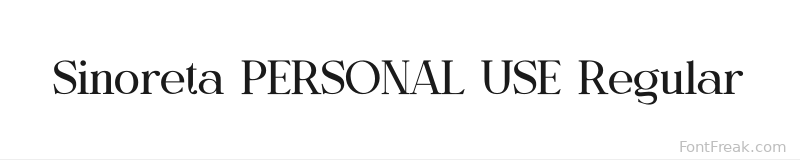
Sinoreta PERSONAL USE Regular
Sinoreta PERSONAL USE Regular is a striking serif font designed by Mans Greback, released in 2023. This font captures attention with its elegant and contemporary aesthetic, making it a versatile choice for a variety of design projects. The stroke weight is balanced, providing a sense of sophistication while maintaining readability. The moderate contrast in letterforms adds a refined touch, and the careful spacing between characters enhances legibility, making it suitable for both headlines and body text.
This font is particularly well-suited for wedding invitations, where its graceful curves can convey a sense of romance and elegance. It can also elevate movie posters, imbuing them with a classic yet modern feel. Restaurant menus can benefit from its stylish appearance, creating an inviting atmosphere for diners. Additionally, it serves as an excellent choice for branding projects aimed at small businesses, allowing owners to present a polished image that resonates with their target audience.
What sets Sinoreta PERSONAL USE Regular apart is its ability to blend traditional serif elements with a modern twist. This balance allows it to fit seamlessly into both contemporary and classic designs, making it a standout choice for anyone looking to elevate their typography. With its elegant style and versatility, this font is sure to inspire creativity in every project it graces.